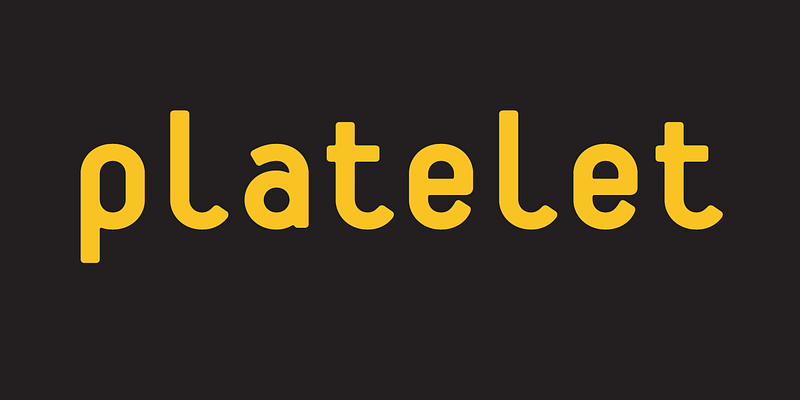
The inspiration for Platelet came from the California license plate. Similar to the composing restrictions of the typewriter, the manufacture of license plates also requires the use of monospaced type; not only for mechanical requirements, but also to fulfill the need of fitting a fixed number of characters onto each plate while maximizing their legibility at a distance. Platelet contains some unexpected solutions to the various problems facing monospaced designs. It also offers solutions that address the reduced legibility of geometric designs, which have a tendency to render many characters indistinguishable, thus reducing their function for text applications. The “m” and “w” cleverly solve the density problem of the three stems by shortening the middle one. The “i” and “l” fill their width not with the standard extended serifs, but with a large curved lead-out stroke. Another creative solution is the lowercase “b,” which incorporates the upper case form within the lower case character. This increases the recognition factor of the “b,” which would otherwise be very similar to other characters, such as the “d,” due to the geometric rigidity of Platelet’s letterform construction. ------- ###Download the PDF [here](https://www.emigre.com/PDF/Platelet.pdf)